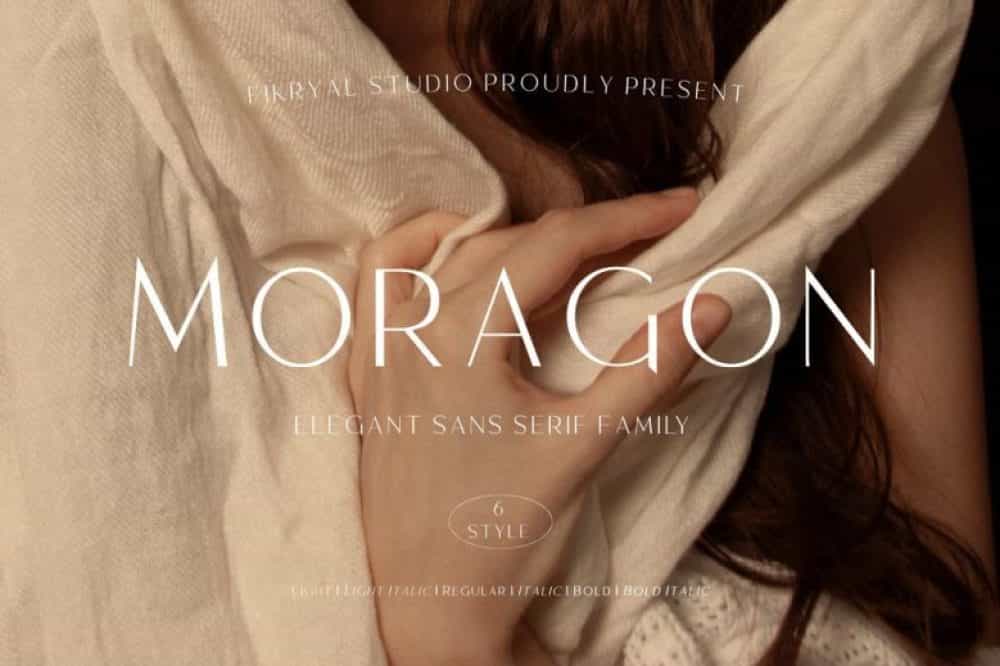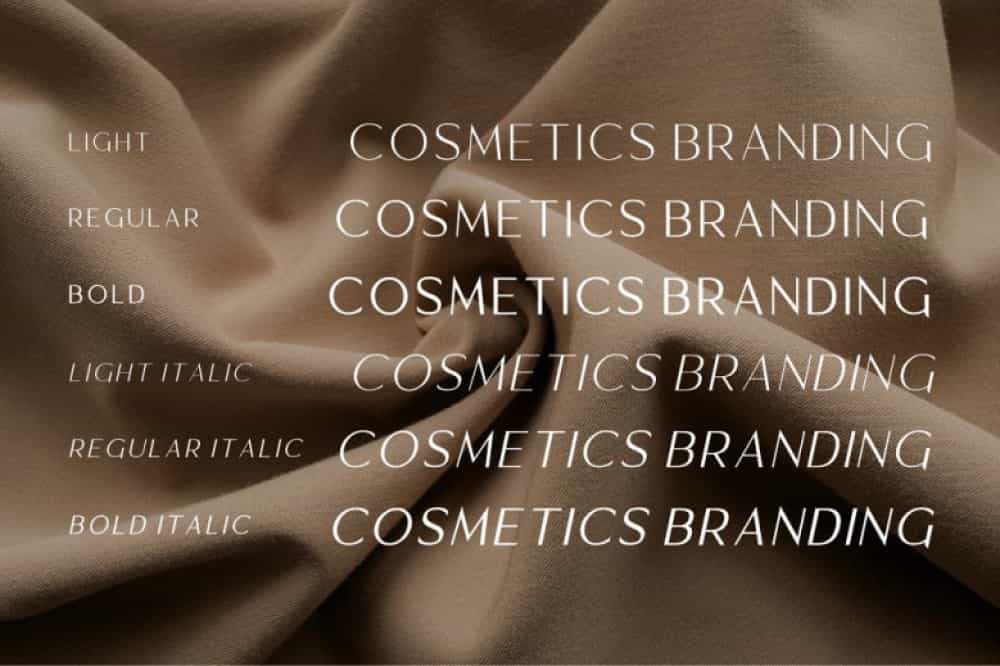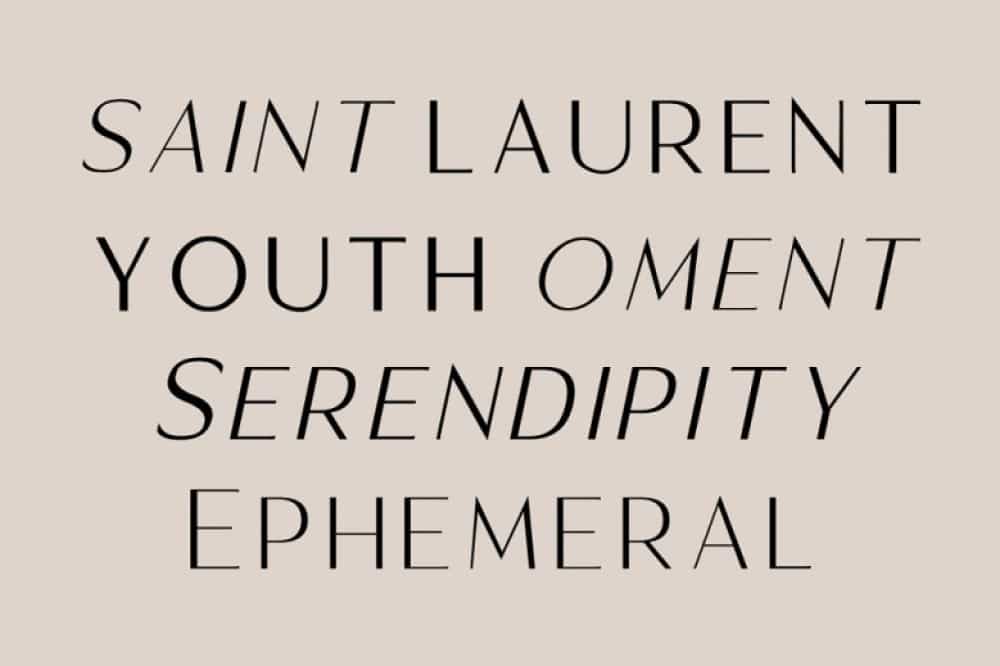
Discover Moragon Font Family, part of the Sans Serif collection—a versatile and unique font perfect for adding a personal touch to your projects. Download it for free and enjoy crafting designs with style, from invitations to social media posts. This font is available exclusively for personal use, giving you the freedom to create without limits. Unlock your creativity with Moragon Font Family today!
Moragon is an elegant sans serif font, clean and up-to- date, it is perfect for almost all types of projects. It’s sans serif in 3 weights and those are thin, light and regular. Moragon Font is indeed a versatile font for any given project because got high contrast glyphs which can be considered both feminine and muscular, and modern, not to mention easy on the eyes.